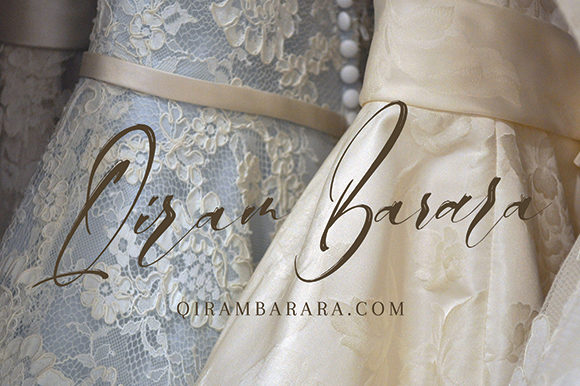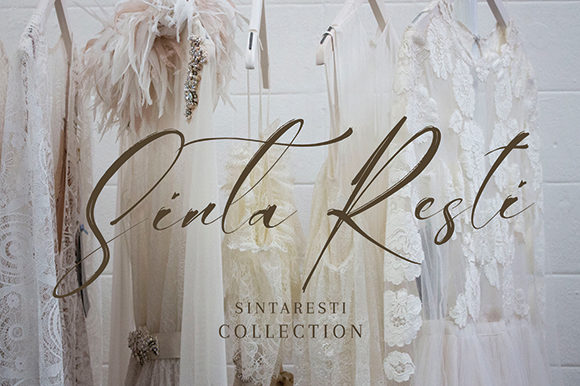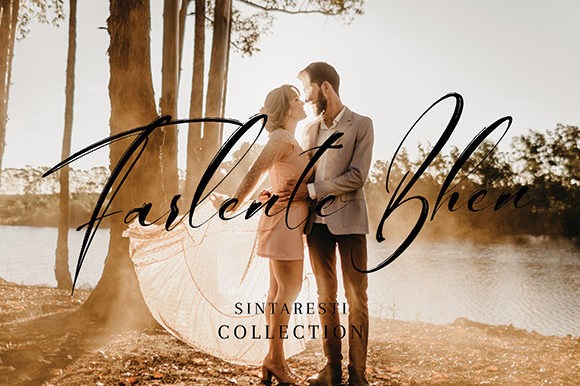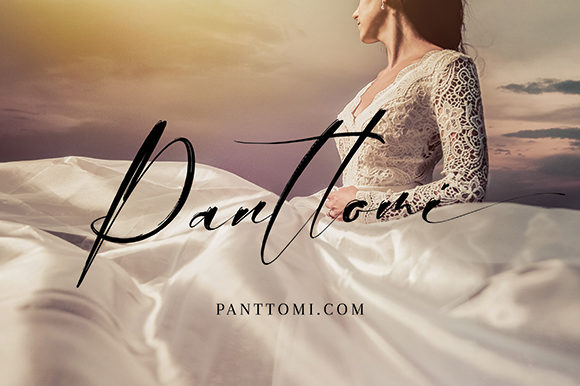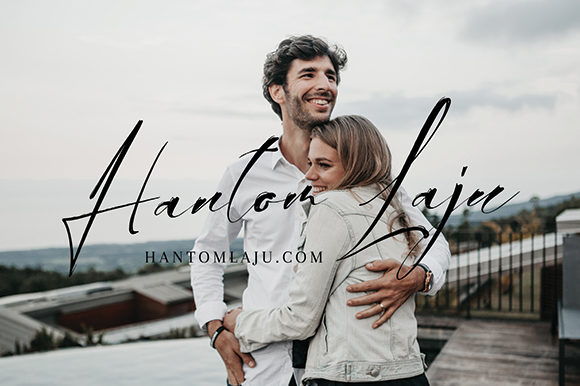
Introducing Alerta Font: The Perfect Blend of Casual and Quirky
Are you on the lookout for a font that adds a touch of personality to your designs? Look no further than Alerta Font, a casual, fun handwritten font created by using a brush pen. With its clean and quirky vibe, Alerta is the perfect fit for all of your logos, branding, social media, and crafty DIY projects.
The Story Behind Alerta Font
Alerta Font is a unique and creative typeface that is inspired by the imperfections of handwritten writing. The font is designed to mimic the look and feel of writing with a brush pen, giving it a relaxed and casual feel. The creator of Alerta Font aimed to produce a font that would be versatile and easy to read, while also adding a touch of whimsy to any design.
Key Features of Alerta Font
- Handwritten with a brush pen: Alerta Font is created by using a brush pen, which gives it a distinctive and authentic look.
- Clean and quirky: The font has a clean and modern look, with a quirky twist that sets it apart from more traditional fonts.
- Versatile: Alerta Font is perfect for a wide range of design projects, from logos and branding to social media graphics and crafty DIY projects.
- Easy to read: Despite its casual and handwritten look, Alerta Font is surprisingly easy to read, making it perfect for use in body text.
Uses for Alerta Font
Alerta Font is a versatile typeface that can be used in a wide range of design projects. Here are some ideas to get you started:
- Logos and branding: Alerta Font is perfect for creating unique and memorable logos and branding materials.
- Social media graphics: Add a touch of personality to your social media graphics with Alerta Font.
- Crafty DIY projects: Alerta Font is perfect for use in crafty DIY projects, such as handmade cards, gift tags, and scrapbooking.
- Signage and display text: Alerta Font can be used to create eye-catching signage and display text for events, exhibitions, and retail displays.
Tips for Using Alerta Font
Here are some tips for getting the most out of Alerta Font:
- Experiment with different sizes: Alerta Font looks great in a range of sizes, from large display text to smaller body text.
- Pair with other fonts: Try pairing Alerta Font with other fonts to create a unique and interesting contrast.
- Use in combination with images: Alerta Font looks great when used in combination with images and illustrations.
- Don’t be afraid to get creative: Alerta Font is a versatile typeface that can be used in a wide range of design projects, so don’t be afraid to get creative and try new things.
Alerta Font is a unique and versatile typeface that is perfect for designers and crafters looking to add a touch of personality to their designs. With its clean and quirky vibe, Alerta Font is the perfect fit for a wide range of design projects, from logos and branding to social media graphics and crafty DIY projects. So why not give Alerta Font a try and see how it can elevate your designs?